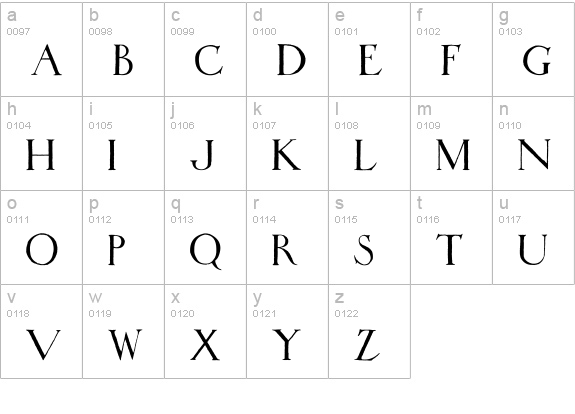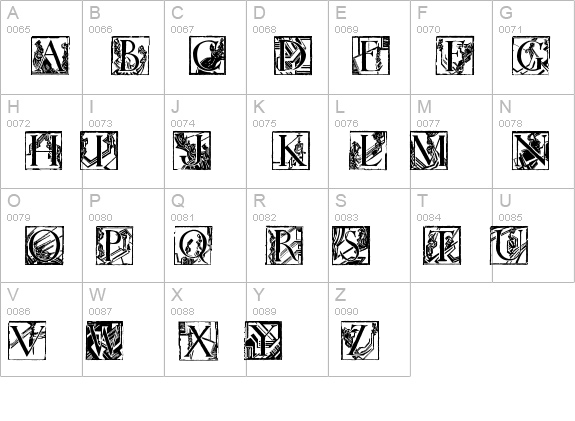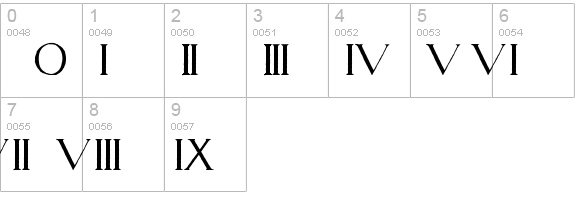
Wadsworth's_Industria Font Details
Introducing Wadsworth's_Industria, a striking and versatile font that effortlessly captures the essence of modern industrial design. This font is the perfect balance between boldness and sophistication, making it ideal for a wide range of creative projects. With its clean lines and sharp edges, Wadsworth's_Industria commands attention and exudes a sense of power and confidence. Each character is meticulously crafted, ensuring impeccable legibility and a seamless reading experience. Whether used for headlines, logos, or body text, this font demands to be noticed. But what sets Wadsworth's_Industria apart is its accessibility. Unlike many other premium fonts, Wadsworth's_Industria is freely available to download at FontsMarket.com. This means that designers, artists, and enthusiasts alike can enjoy the countless possibilities of this exceptional font without any financial constraints. The versatility of Wadsworth's_Industria truly knows no bounds. Its modern aesthetic seamlessly integrates with various design styles, from minimalist to industrial, from futuristic to retro. This font effortlessly adapts to any project, whether it's a sleek branding campaign, a captivating editorial layout, or a cutting-edge website design. Wadsworth's_Industria is a testimony to the power of typography in conveying a message and creating a visual impact. Its unique personality and timeless appeal make it a must-have in any designer's toolkit. So why wait? Embrace the freedom of expression and creativity that Wadsworth's_Industria offers, and elevate your designs to new heights. Download this extraordinary font today, exclusively at FontsMarket.com.